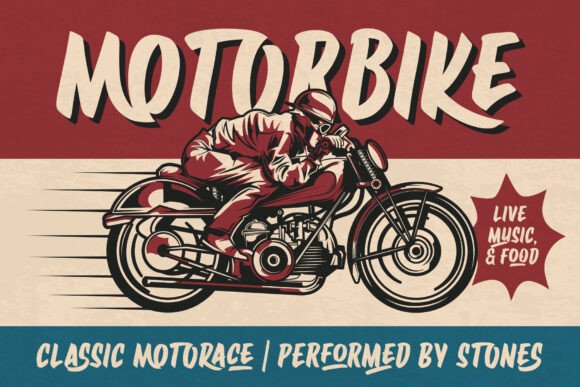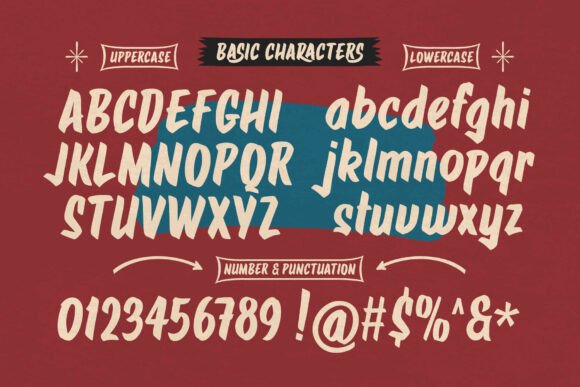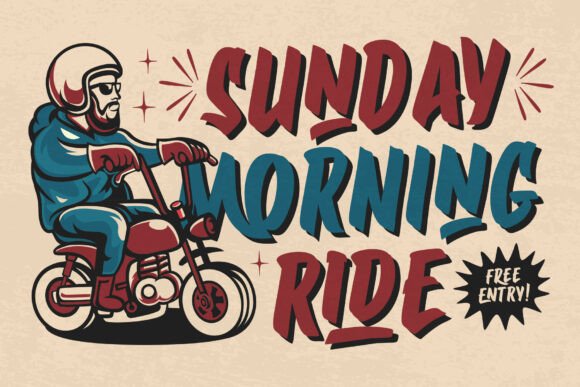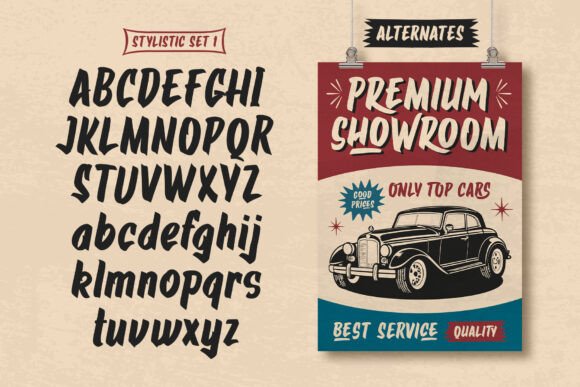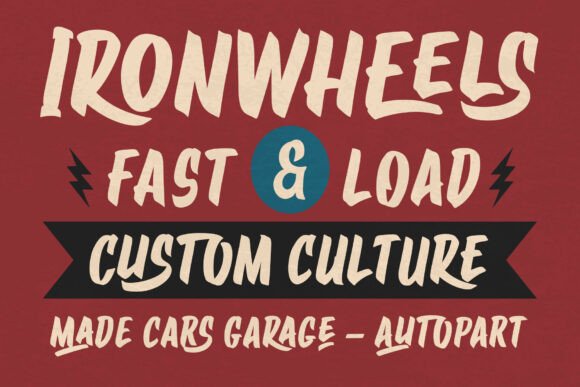
Garage Brush Font
Garage Brush Typeface is a vintage-inspired handwritten font that captures the smooth spontaneity of brush paint strokes. Perfect for adding a retro, artisanal feel to any design, this typeface is both bold and fluid, making it ideal for logos, posters, branding, and creative projects that need a touch of authenticity and flair.